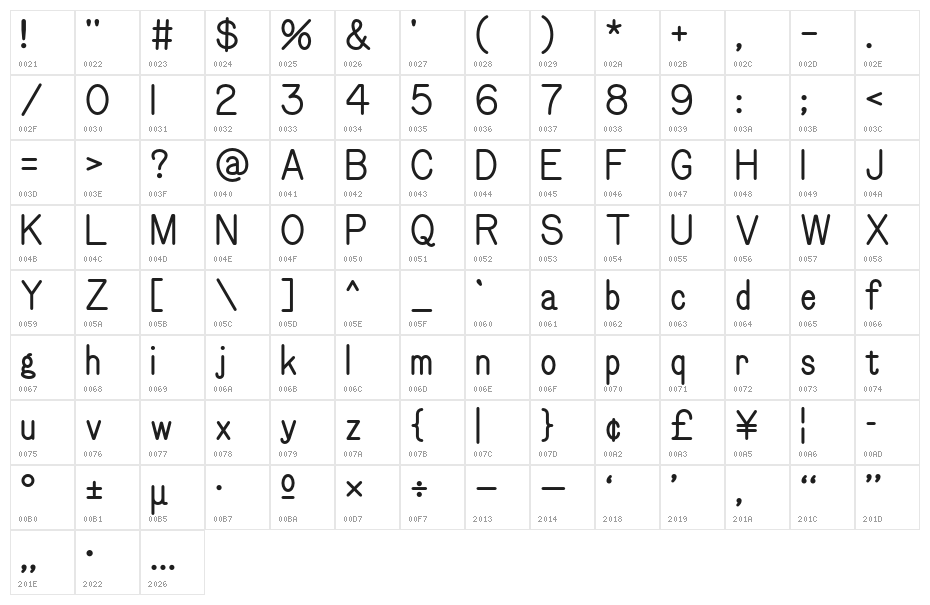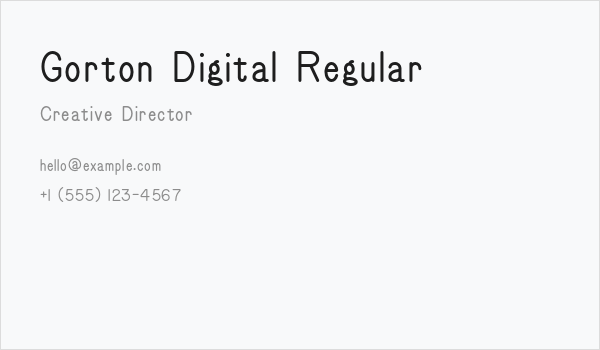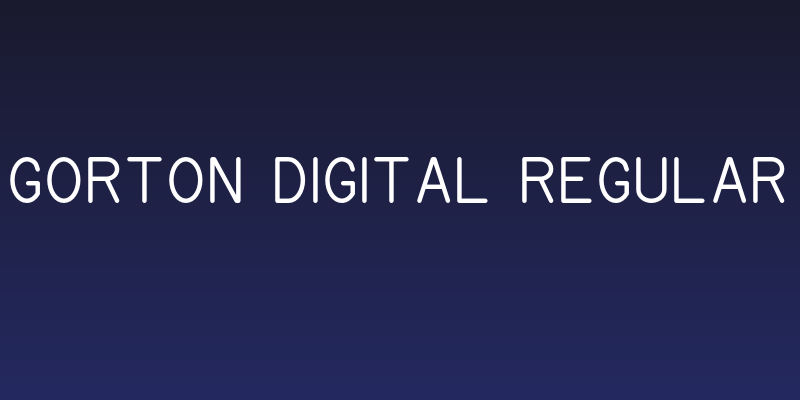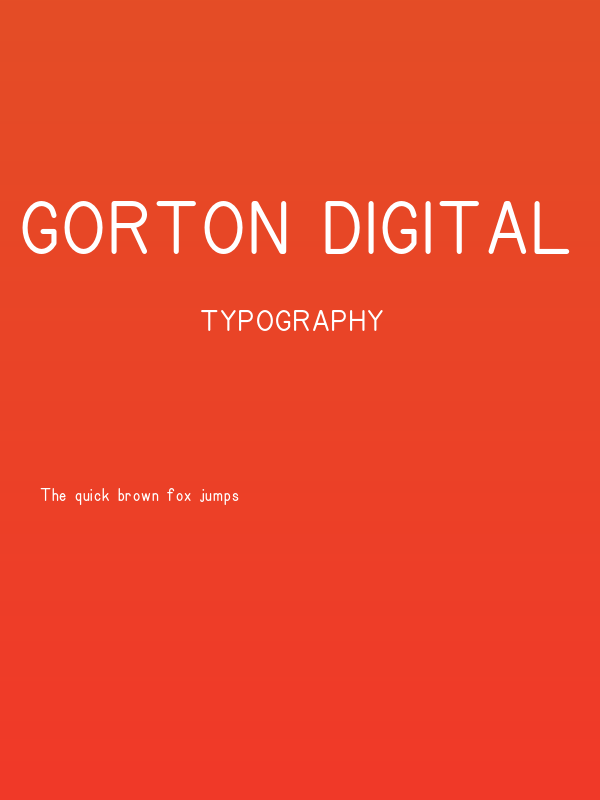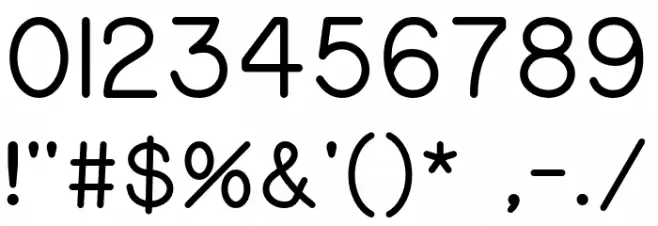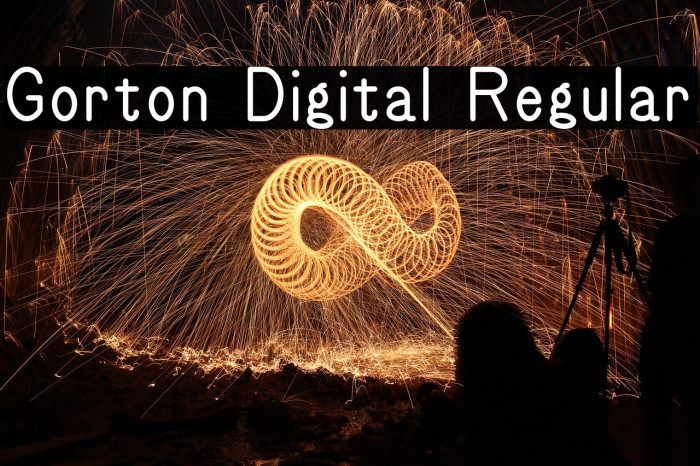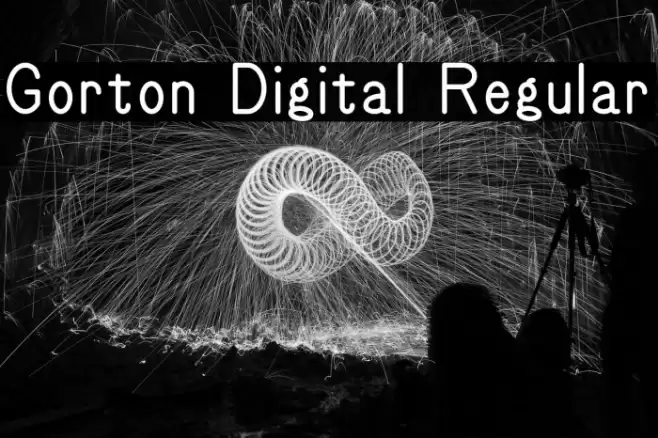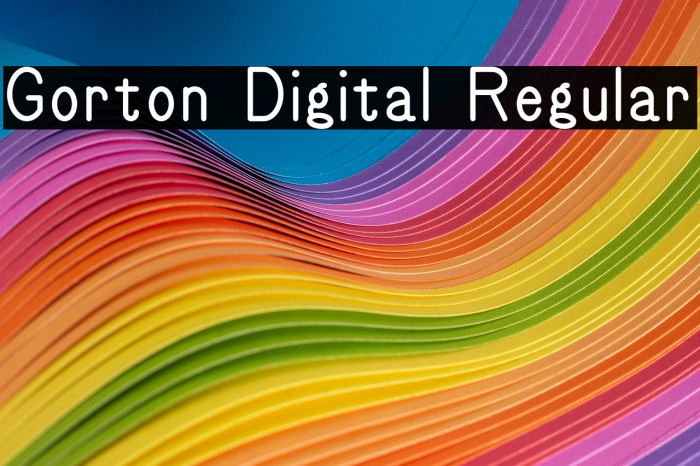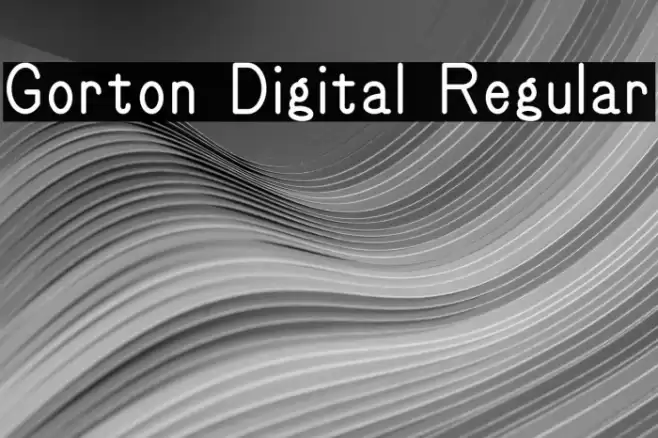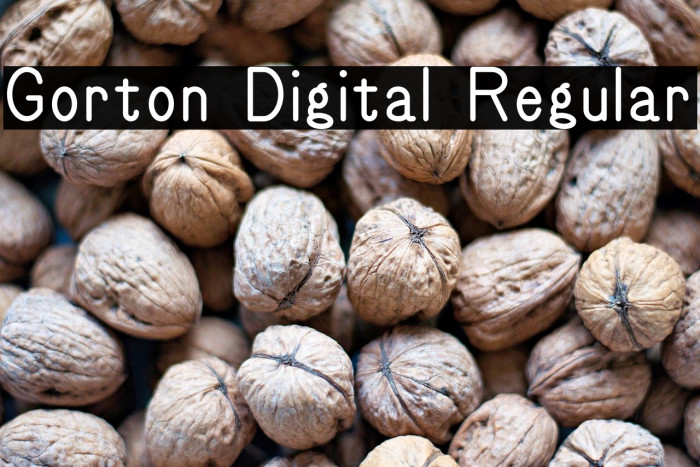
Gorton Digital Regular Font
A revival of a 20th century interwar typeface. In the early- to mid-20th century, the George Gorton Machine Company made engraving machines (among other machines).